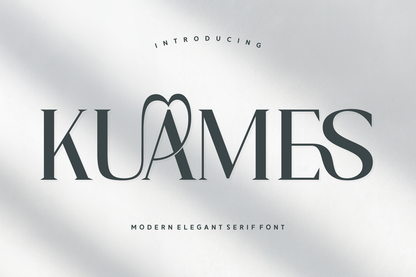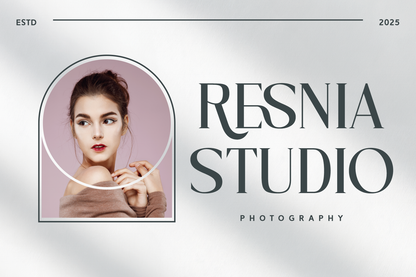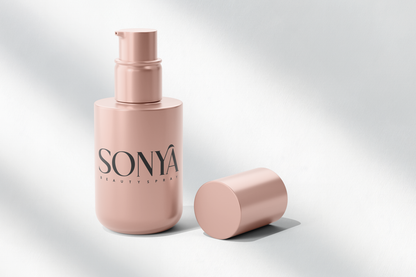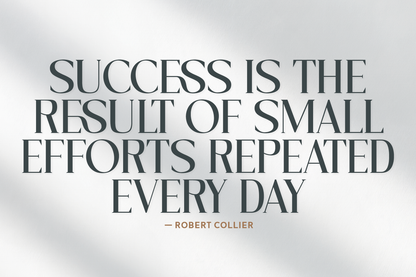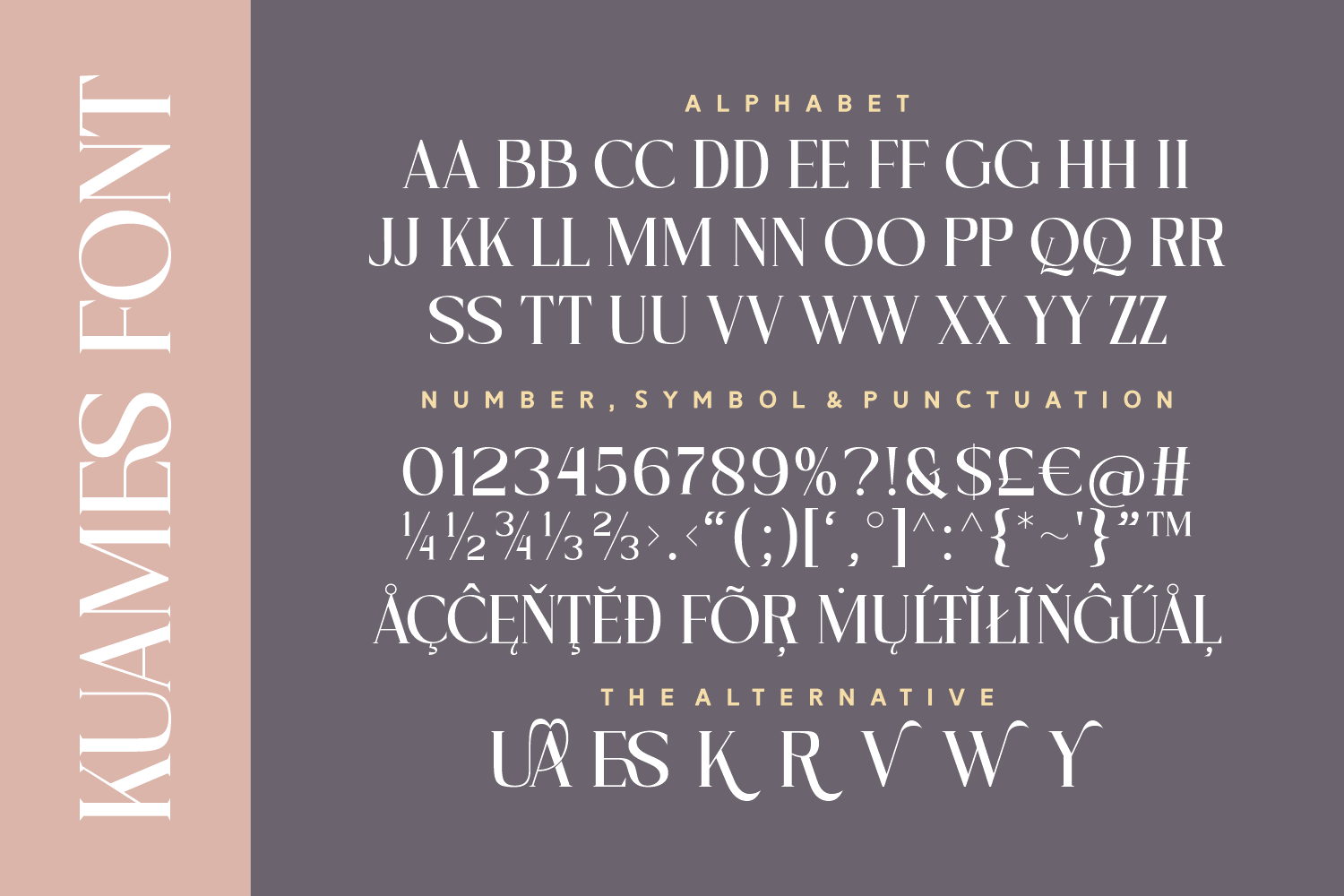
Kuames is a modern, elegant serif font that turns simplicity into art. With graceful, flowing ligatures and beautifully elongated shapes, it brings high-end appeal to branding, beauty, and magazine designs.
Delicate curves. Dramatic impact.